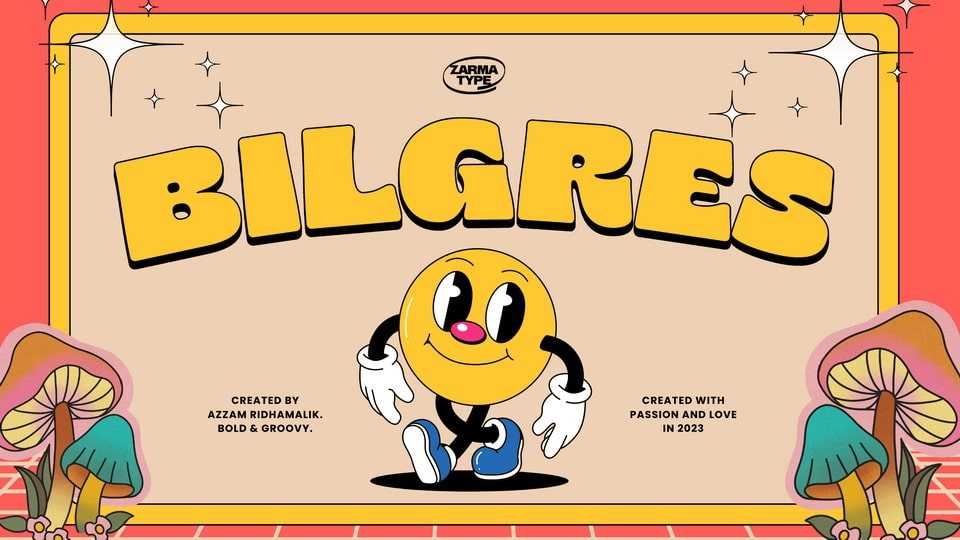
Download Bilgres font, a hippie-themed typeface that combines strong and gentle shapes with rounded edges, giving it a unique and playful style. With its bold and wide look Bilgres font is perfect for creating eye-catching designs.
Designer: Zarma Type Foundry